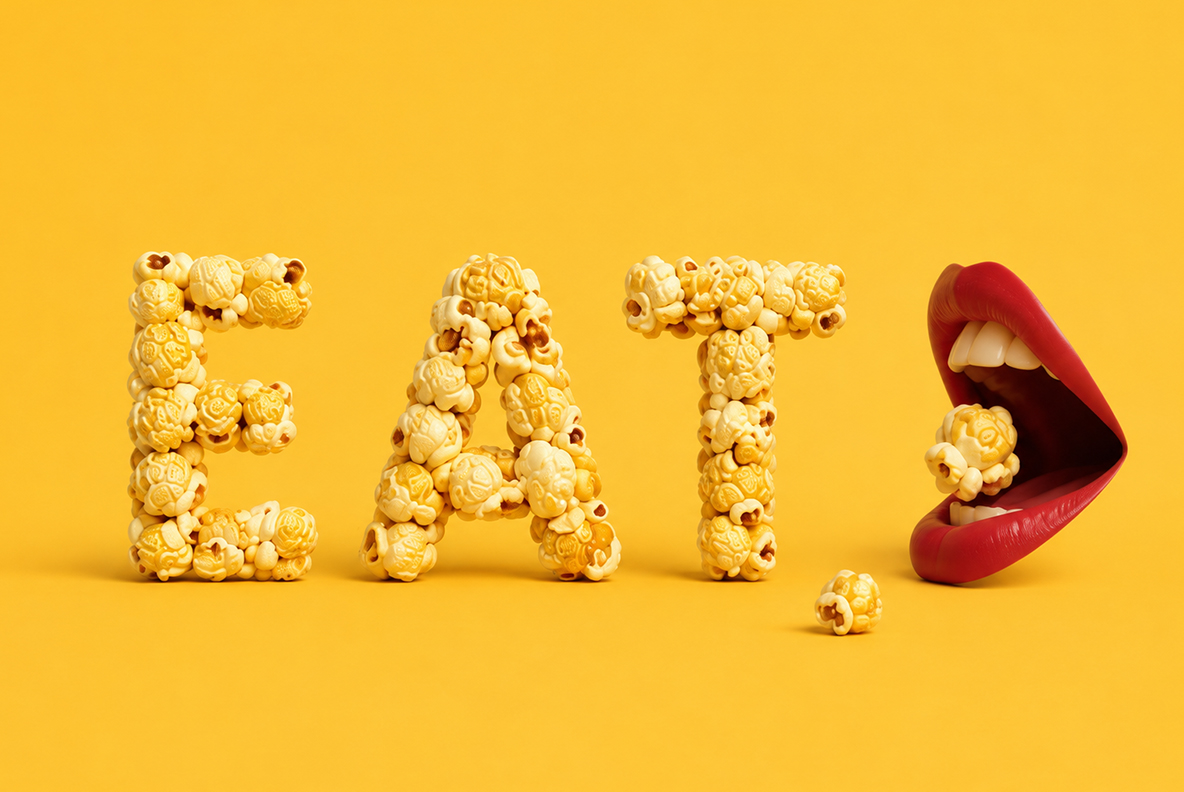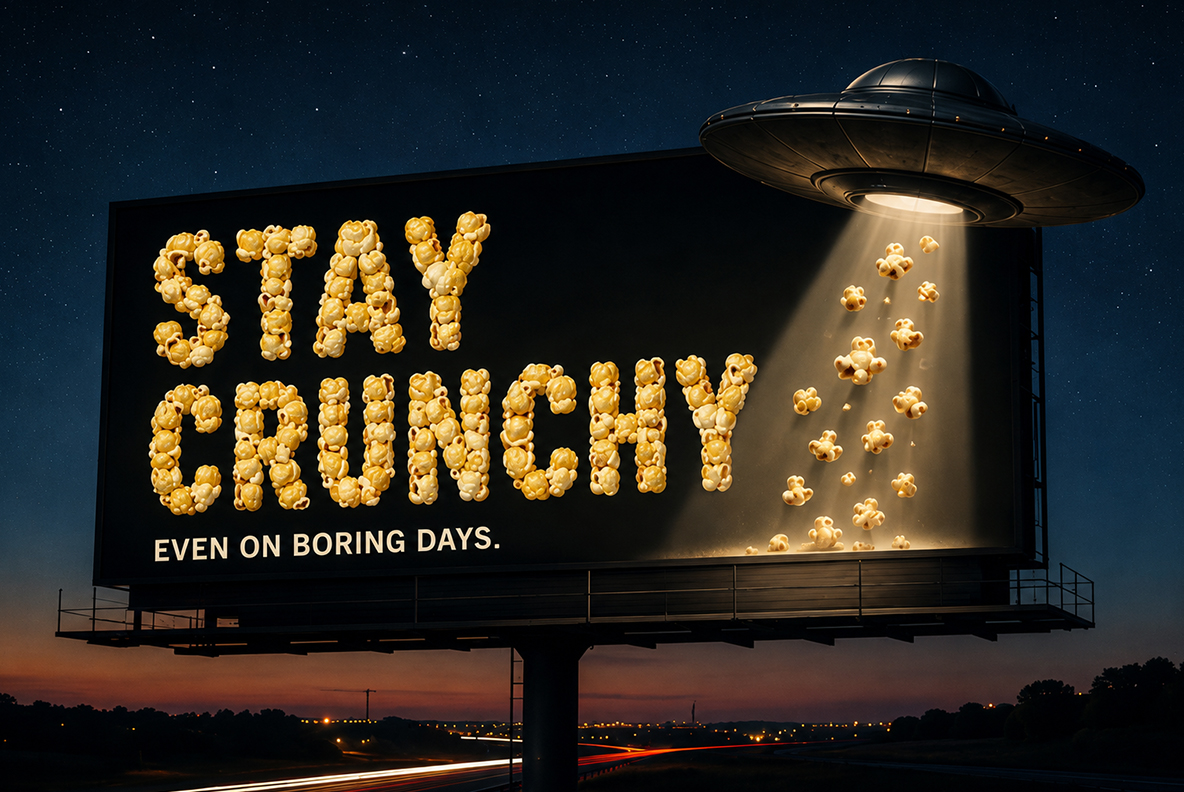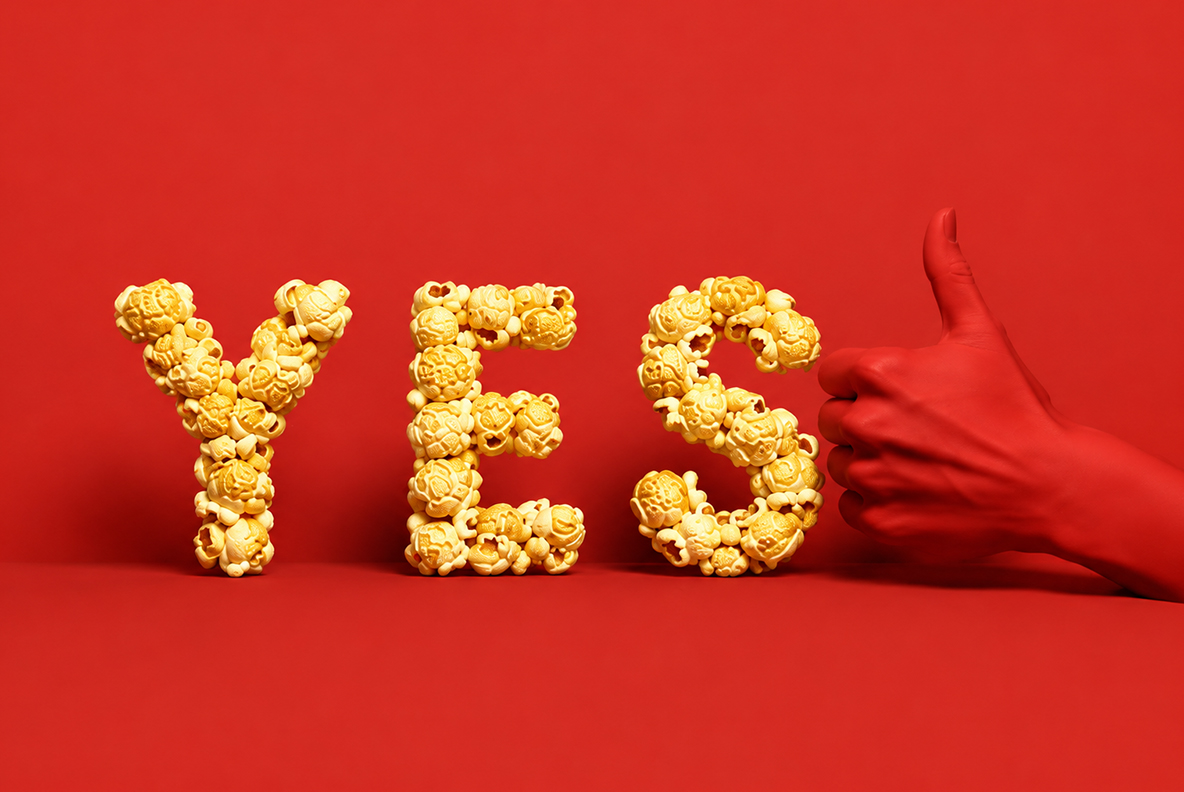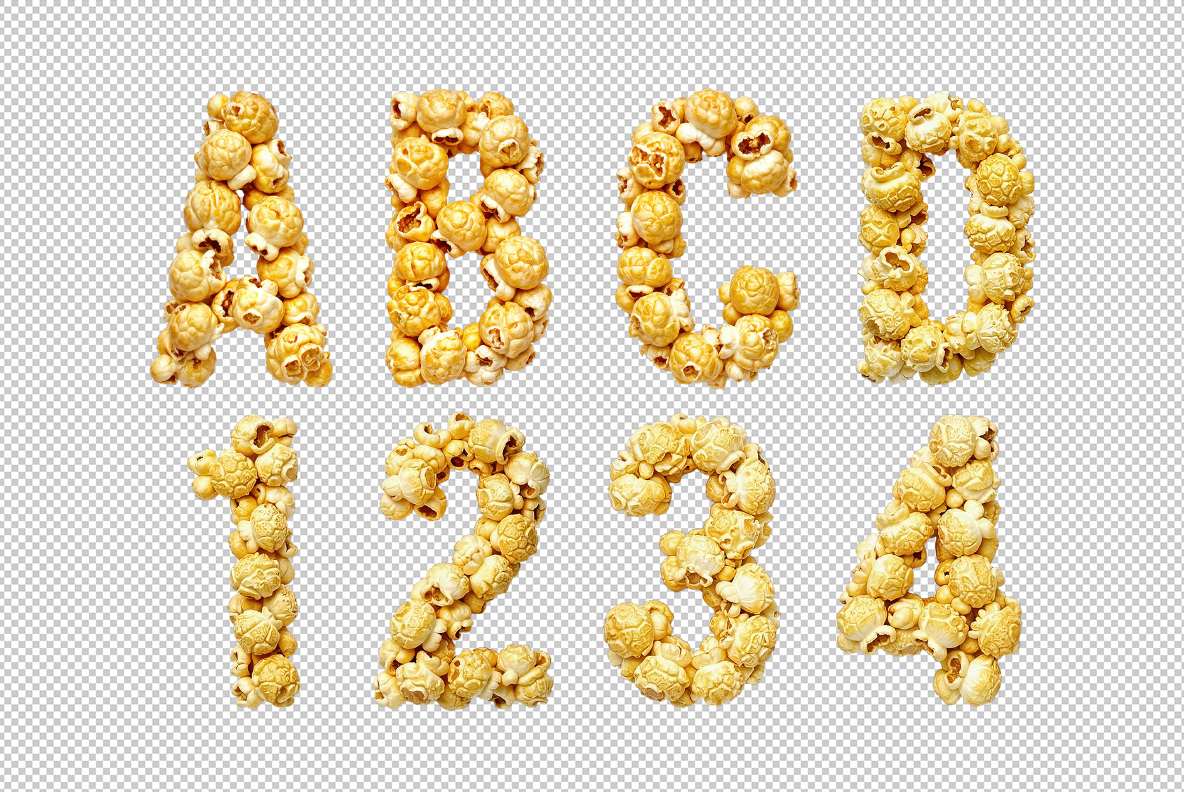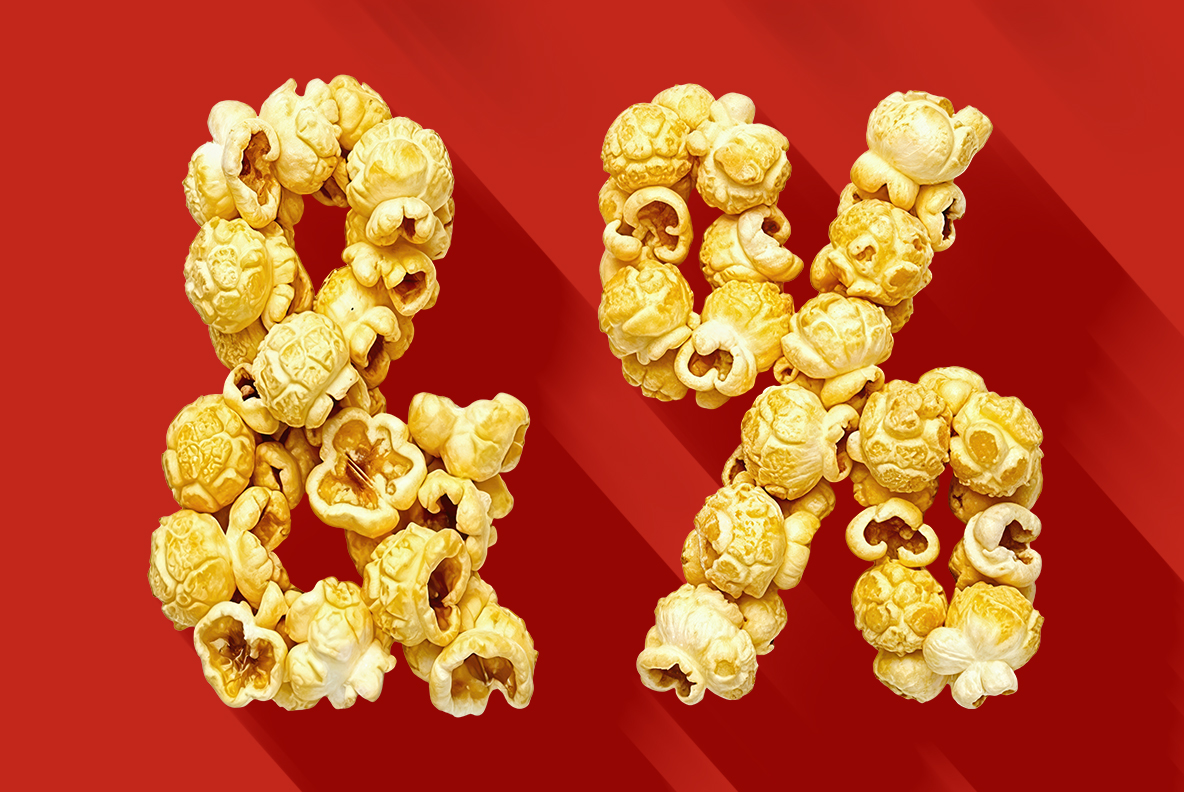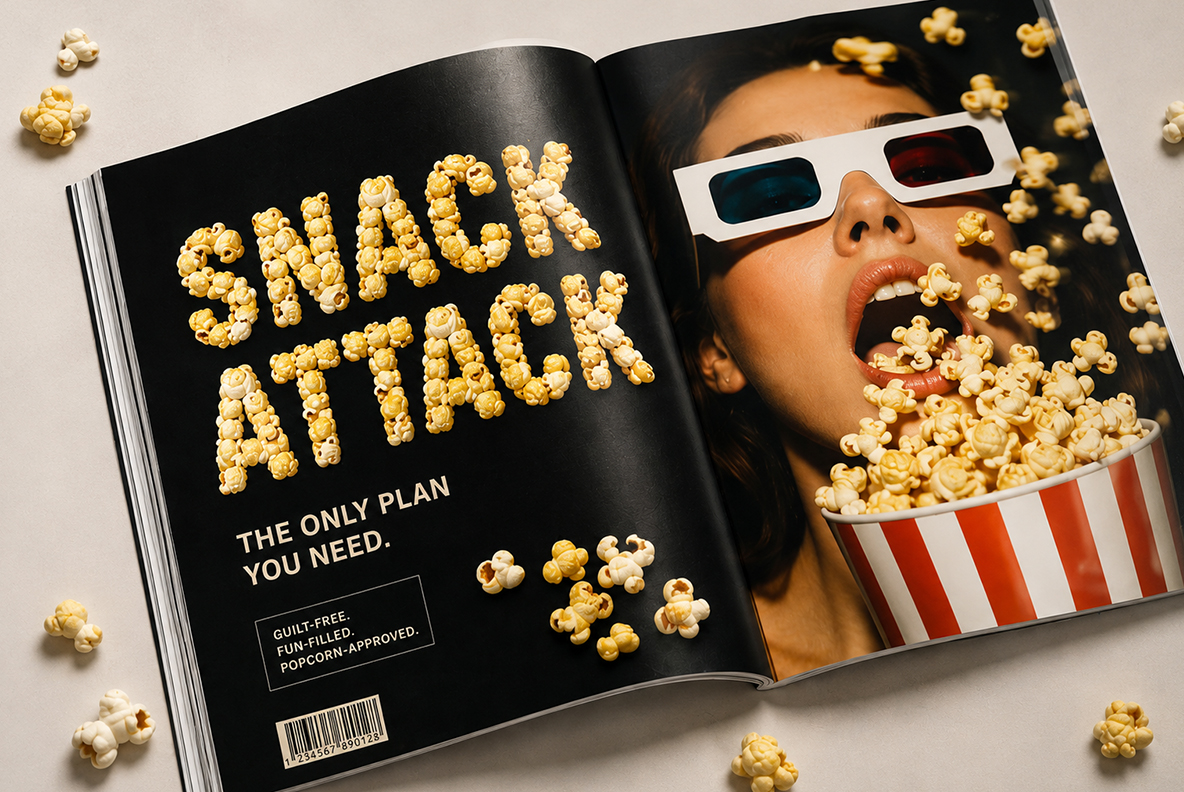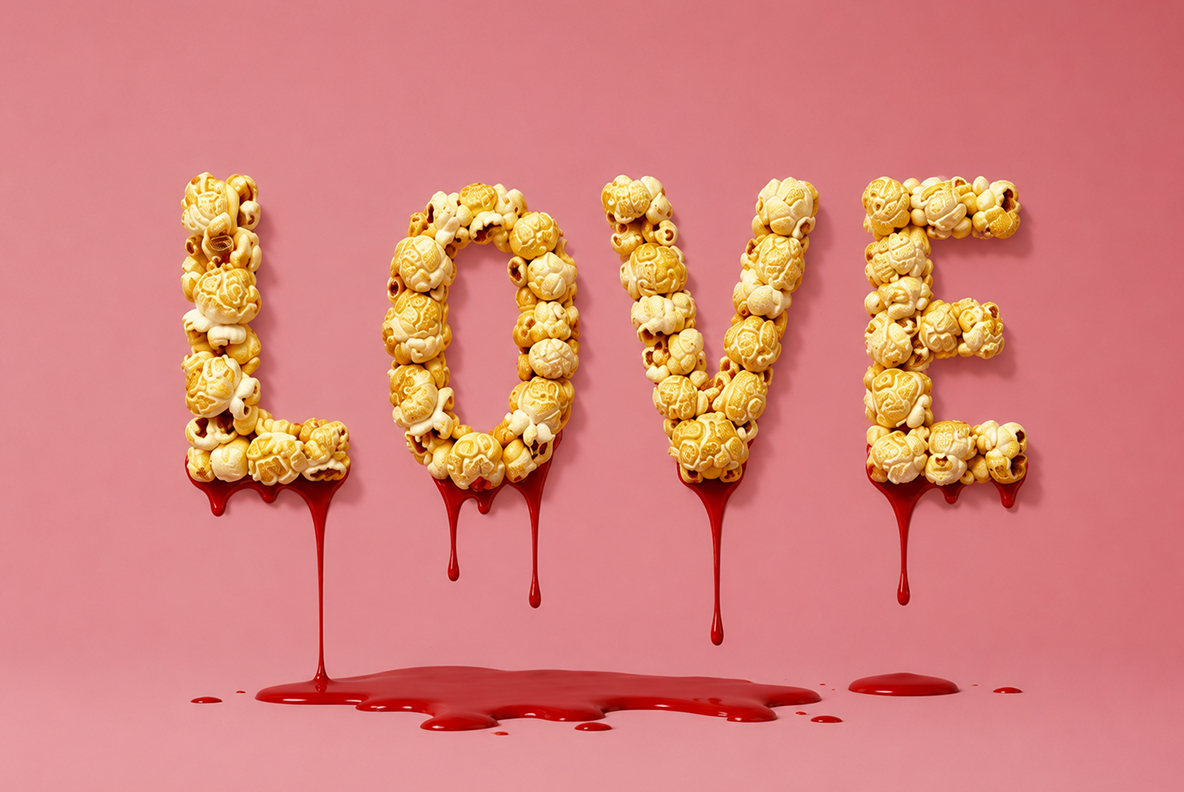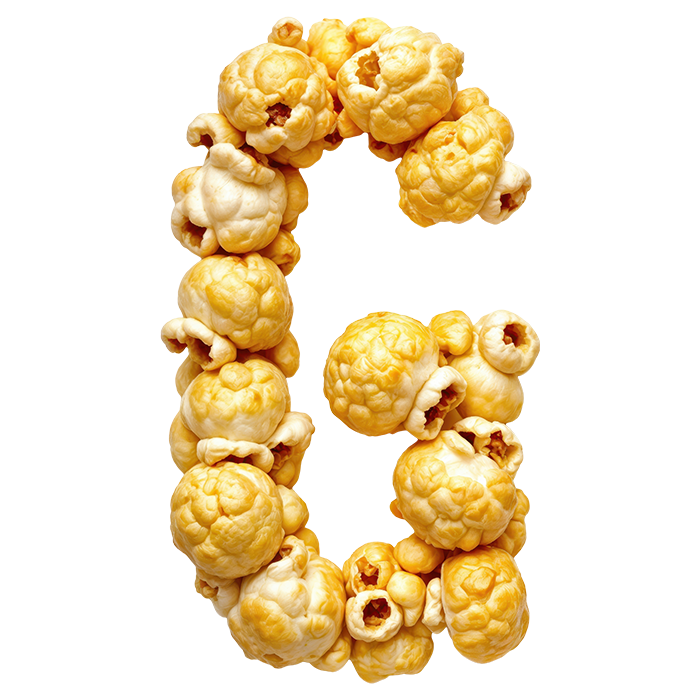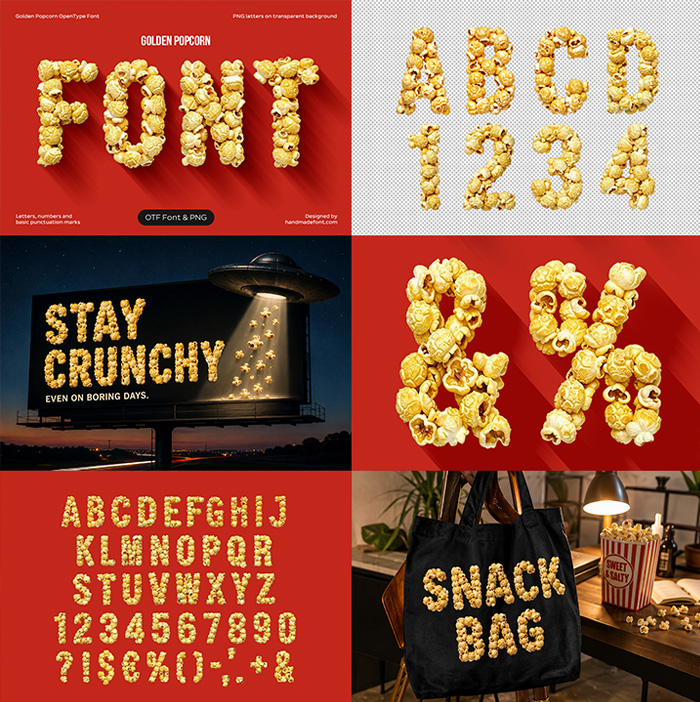
Golden Popcorn Font. Grab a handful of typography!
Skip the butter; we brought the crunch straight to your keyboard. Golden Popcorn Font is a deliciously realistic 3D typeface that makes your designs pop right off the screen. Whether you are designing movie night invitations or cinema posters, this high-resolution OTF and PNG alphabet gives your creative projects that irresistible, freshly popped flavor. Grab a handful and type!
Why Golden Popcorn Font Steals the Scene
Flat text rarely stops anyone mid-scroll. Golden Popcorn Font does, because every letter is built from real popcorn — kernels we popped, photographed, and pieced together one by one until the color and crunch looked right. It took a few burnt batches to get that golden shade exactly right. You can practically smell the cinema lobby. It’s the kind of typeface that turns a plain headline into a snack you want to reach for, without leaving butter on your keyboard.
Animated GIF of popcorn kernels forming letters for the Golden Popcorn Font
Golden Popcorn Font title slide spelling FONT in popcorn letters on a red background
Complete Golden Popcorn Font character set with letters, numbers, and punctuation on a red background
The word OMG spelled in Golden Popcorn Font letters beside a frying pan
Close-up of ampersand and percent symbols from the Golden Popcorn Font
Magazine spread mockup using the Golden Popcorn Font for a Snack Attack headline
The word LOVE in Golden Popcorn Font letters dripping red sauce on a pink background
Tote bag mockup printed with Snack Bag using the Golden Popcorn Font
Where to Use This Snack-Sized Typeface
This one is built for anything with a bit of fun in it: movie night flyers, birthday invitations, YouTube thumbnails, retro diner menus, or a cinema-themed social post — it screams entertainment the moment it lands on the page. Keep the rest of your layout clean and let the popcorn texture carry the attention; a couple of exclamation marks never hurt either. If snack-food typography is your thing, the Food Fonts collection has plenty more in the same spirit.
The word CORN spelled in Golden Popcorn Font letters next to a real corn cob
Framed poster mockup reading Movie Night in the Golden Popcorn Font
The word EAT in Golden Popcorn Font letters beside a mouth biting a popcorn kernel
Billboard mockup at night reading Stay Crunchy in the Golden Popcorn Font with a UFO graphic
The word YES in Golden Popcorn Font letters next to a thumbs up hand